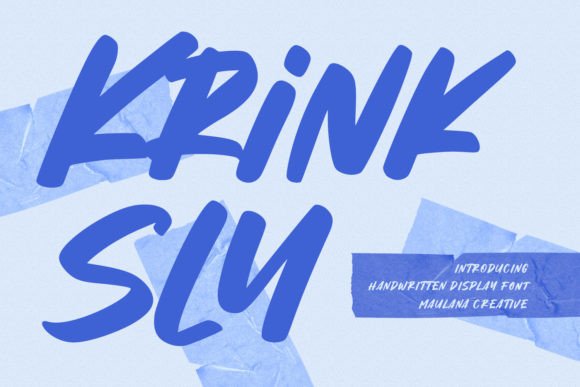
Krinksly Font: The Quirky and Cool Handwritten Display Font
When it comes to typography, the right font can make all the difference in the world. It can elevate your design, convey your brand’s personality, and capture the attention of your audience. In this article, we’ll be exploring the Krinksly font, a fancy and cool handwritten display font that’s making waves in the design world. A little bit quirky, this font looks incredibly adept in a wide variety of contexts, and we’re excited to dive in and explore its features, uses, and benefits.
What is Krinksly Font?
Krinksly font is a type of handwritten display font that’s designed to add a touch of personality and whimsy to your designs. With its unique and quirky style, Krinksly font is perfect for designers who want to create something that’s a little bit different from the norm. This font is characterized by its flowing lines, irregular shapes, and distinctive letterforms that give it a one-of-a-kind look.
Key Features of Krinksly Font
- Handwritten style: Krinksly font has a distinctly handwritten feel that’s perfect for creating a personal and approachable vibe.
- Quirky and playful: This font is a little bit quirky and playful, making it perfect for designs that need to stand out from the crowd.
- Display font: Krinksly font is designed specifically for display purposes, making it perfect for headlines, titles, and other attention-grabbing elements.
- Unique letterforms: Each letterform in Krinksly font has its own unique character and personality, adding to the font’s overall charm.
Uses and Applications of Krinksly Font
Krinksly font is incredibly versatile and can be used in a wide range of contexts, including:
- Branding and logos: Krinksly font is perfect for creating unique and memorable logos that stand out from the competition.
- Headlines and titles: This font is designed specifically for display purposes, making it perfect for headlines, titles, and other attention-grabbing elements.
- Posters and flyers: Krinksly font is a great choice for posters and flyers that need to grab attention and make a statement.
- Social media graphics: This font is perfect for creating eye-catching social media graphics that stand out from the crowd.
- Packaging and labels: Krinksly font can add a touch of personality and whimsy to packaging and labels, making them more memorable and engaging.
Benefits of Using Krinksly Font
So why choose Krinksly font for your next design project? Here are just a few benefits of using this unique and quirky font:
- Adds personality: Krinksly font adds a touch of personality and whimsy to your designs, making them more engaging and memorable.
- Stand out from the crowd: This font is a little bit different from the norm, making it perfect for designers who want to create something that stands out from the crowd.
- Versatile: Krinksly font is incredibly versatile and can be used in a wide range of contexts, from branding and logos to posters and social media graphics.
- Easy to read: Despite its quirky style, Krinksly font is surprisingly easy to read, making it perfect for display purposes.
Tips and Tricks for Using Krinksly Font
Here are a few tips and tricks for getting the most out of Krinksly font:
- Use it sparingly: Krinksly font is a display font, so it’s best used sparingly to add emphasis and personality to your designs.
- Experiment with colors: This font looks great in a wide range of colors, so don’t be afraid to experiment and find the perfect hue for your design.
- Pair it with other fonts: Krinksly font pairs well with a wide range of other fonts, so feel free to experiment and find the perfect combination for your design.
- Pay attention to sizing: Make sure to adjust the size of Krinksly font to fit your design needs, as it can be a bit bold and attention-grabbing.
In conclusion, Krinksly font is a unique and quirky handwritten display font that’s perfect for designers who want to add a touch of personality and whimsy to their designs. With its flowing lines, irregular shapes, and distinctive letterforms, Krinksly font is sure to grab attention and make a statement. Whether you’re working on a branding project, creating a poster, or designing social media graphics, Krinksly font is a great choice. So why not give it a try and see how it can elevate your designs?